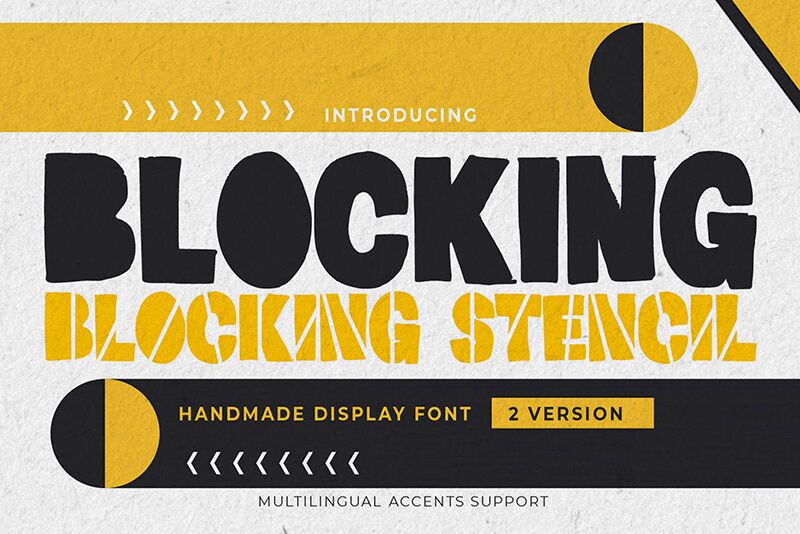
Blocking Stencil
Blocking Stencil font by Gassstype commands attention with its bold, striking appearance. As a display font, it blends the industrial vibes of stencil design with a playful cartoon flair, making it uniquely versatile. This bold font makes an impactful statement, perfect for eye-catching posters or dynamic branding. Its distinctive cut-out style offers creative possibilities in both print and digital media.
Ideal for projects that need a strong visual presence, Blocking Stencil can elevate promotional materials and packaging designs. It's available as a free font download, offering designers an accessible option to enhance their creative work with this one-of-a-kind typeface.